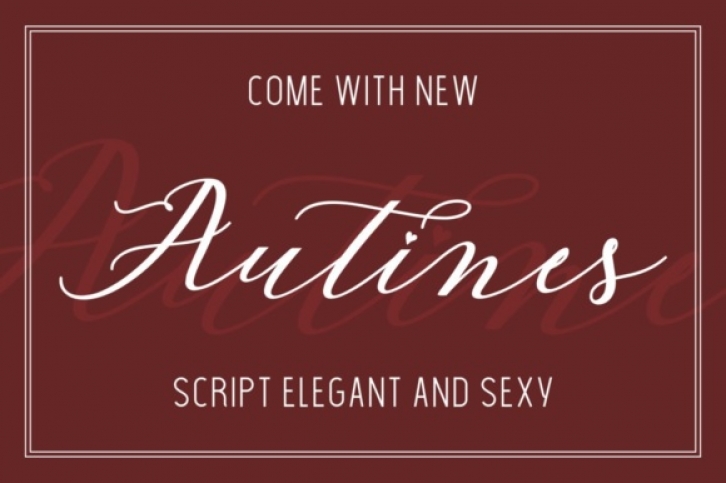
The Autines is a modern, feminine font. Every letter has been carefully crafted to make your text look beautiful.
With its modern script style, the Autines is perfect for various projects such as: photography, watermarks, quotes, blog headers, posters, weddings, branding, logos, and every other design that needs a elegant typeface.